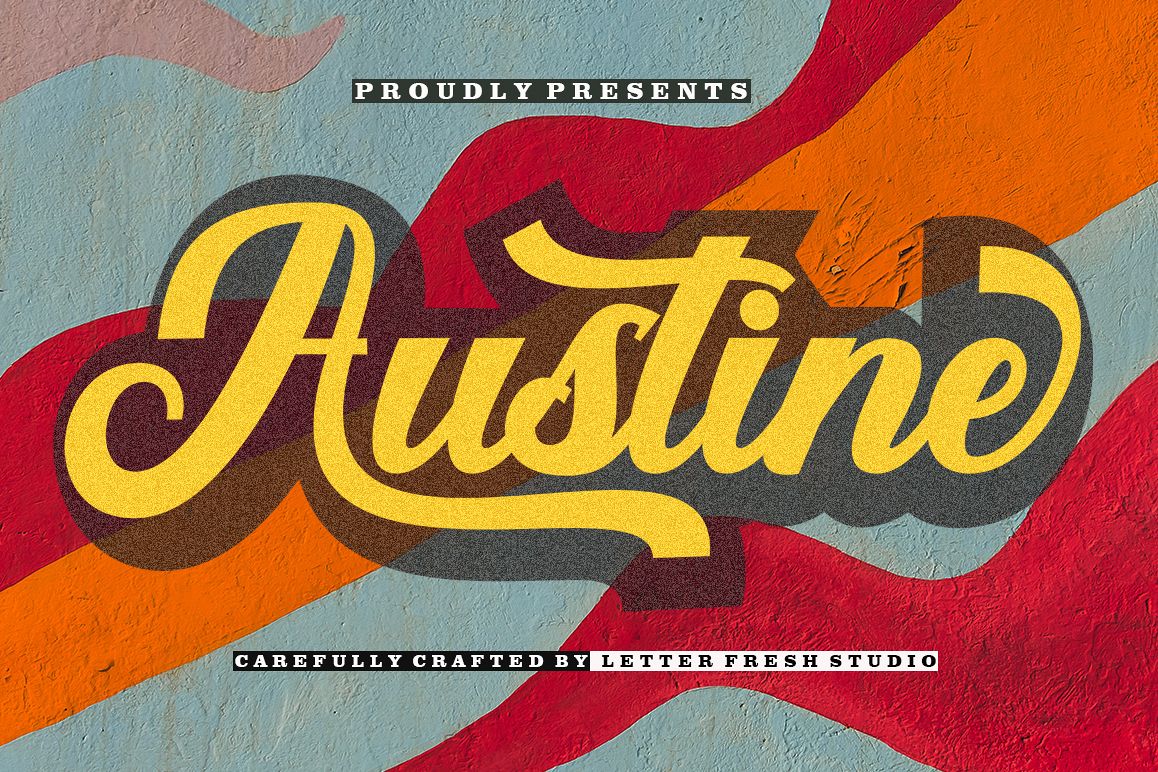
**Austine** Script Inspired by Retro style and combination with Handwriting style. **Austine** has many alternative swash and features like stylistic alternatice, stylistic set, ligature and swash so you can mix and match as you wish.
**Austine** Script comes with open type features such as alternative styles, style sets & great features for logos, posters, badges, book covers, t-shirt designs, handwritten quotes, product packaging, headers, posters, merchandise, social media & greeting cards.